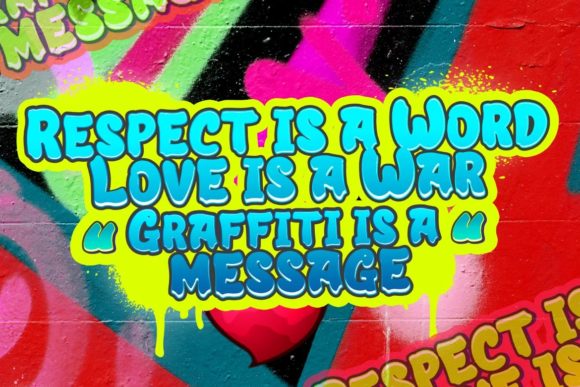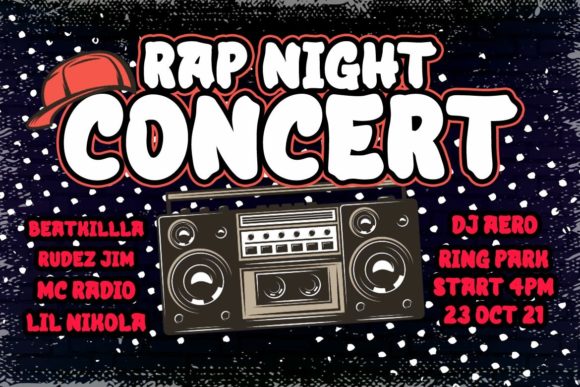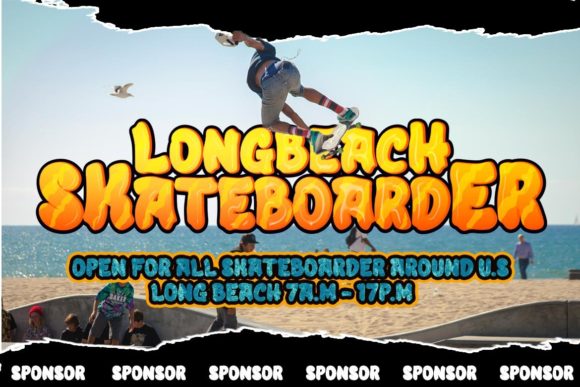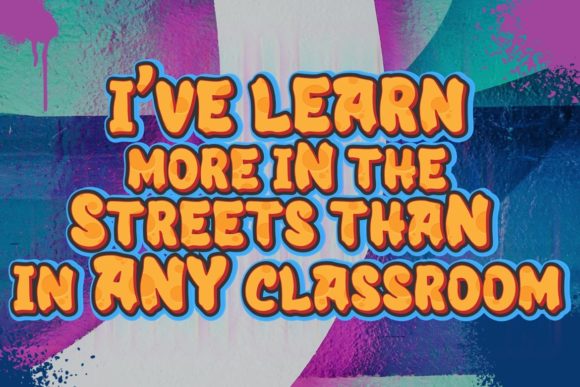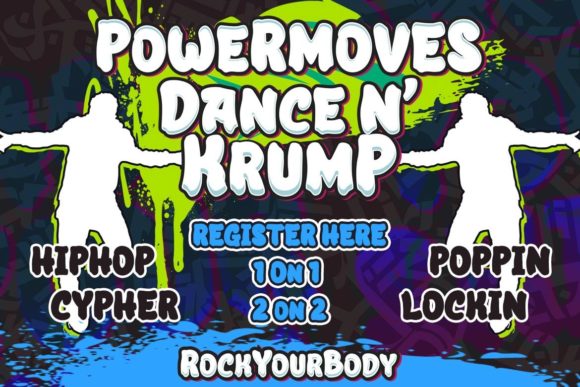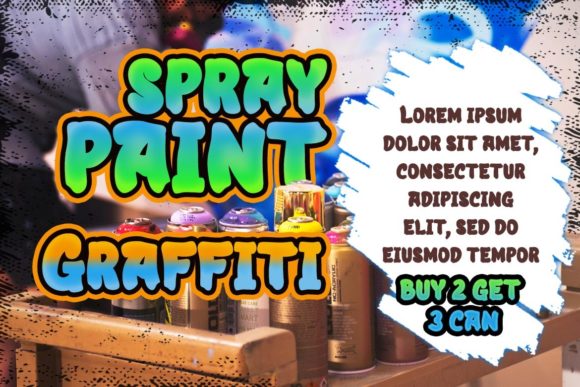
Introducing Angombe Font: The Ultimate Graffiti-Styled Display Font for Fun and Creativity
Are you tired of using the same old fonts for your designs and crafts? Look no further! Angombe Font is here to revolutionize the way you add a pop of personality to your projects. This vibrant, graffiti-styled display font is perfect for anyone looking to inject a dose of playfulness and authenticity into their work.
What is Angombe Font?
Angombe is a one-of-a-kind, colorful display font that embodies the spirit of creativity and fun. Its chunky, lettered design makes it an ideal choice for children’s activities, school projects, and any other endeavor that requires a dash of whimsy. With Angombe Font, you can add a fresh and youthful touch to your designs, making them come alive in a way that will captivate your audience.
Key Features of Angombe Font
- Graffiti-styled design: Angombe Font boasts a unique, graffiti-inspired aesthetic that adds an edgy, urban feel to your designs.
- Colorful and vibrant: This font is not just a simple black and white affair. Angombe Font comes in a variety of colors, allowing you to add a splash of personality to your projects.
- Chunky lettering: The bold, chunky letters of Angombe Font make it perfect for headlines, titles, and any other application where you want to make a statement.
- Playful and authentic: This font exudes a sense of playfulness and authenticity, making it an excellent choice for projects aimed at children or young adults.
Angombe Font is a versatile and user-friendly font that can be used in a wide range of applications, from digital designs to craft projects. Whether you’re a professional designer or a crafty enthusiast, this font is sure to become a staple in your collection.
For designers, Angombe Font offers a unique opportunity to add some personality to your work. Use it to create eye-catching headlines, social media graphics, or even packaging designs that stand out from the crowd.
For crafters, Angombe Font is a dream come true. Use it to add a personal touch to your scrapbooking, card making, or DIY projects. The font’s playful and colorful nature makes it perfect for projects aimed at kids, such as party invitations, activity sheets, or educational materials.
Here are a few tips for getting the most out of Angombe Font:
- Experiment with colors: Don’t be afraid to try out different color combinations to find the perfect look for your project.
- Mix and match: Combine Angombe Font with other fonts to create a unique and eye-catching design.
- Play with textures: Add some texture to your design by incorporating patterns, gradients, or other visual effects.
Angombe Font is a game-changer for designers and crafters looking to add a dash of personality to their work. Its graffiti-styled design, colorful aesthetic, and chunky lettering make it the perfect choice for any project that requires a touch of playfulness and authenticity.